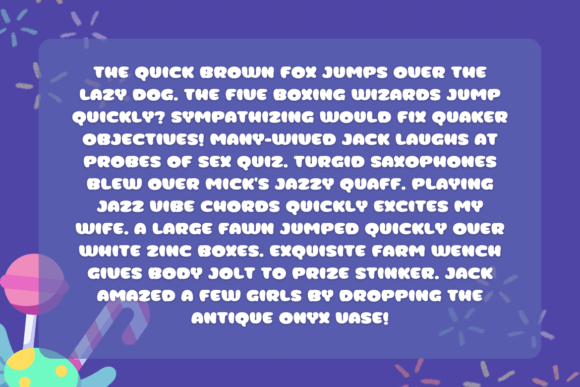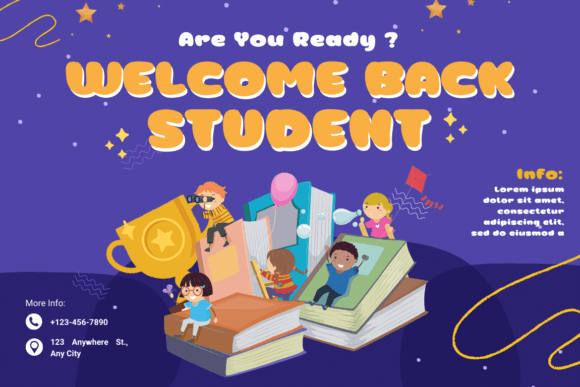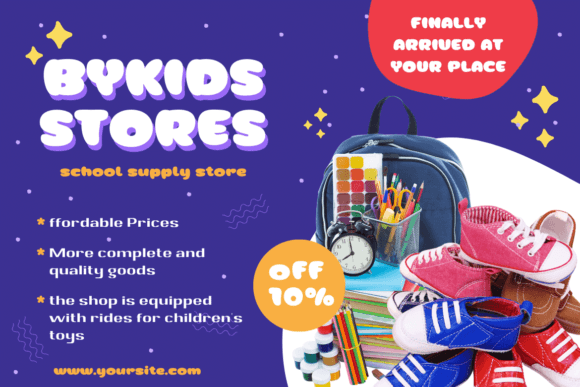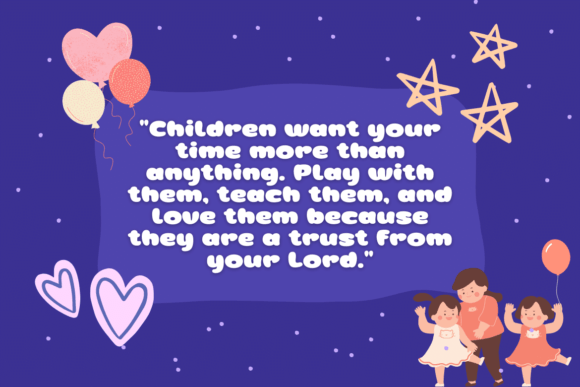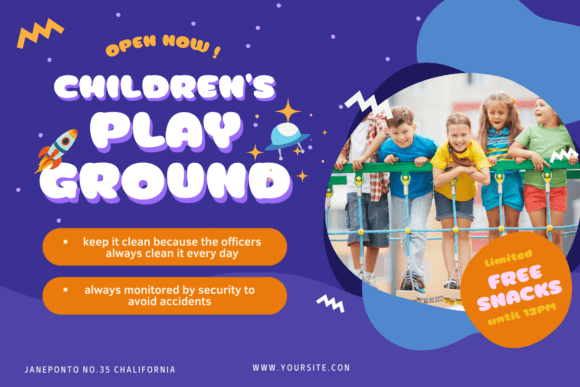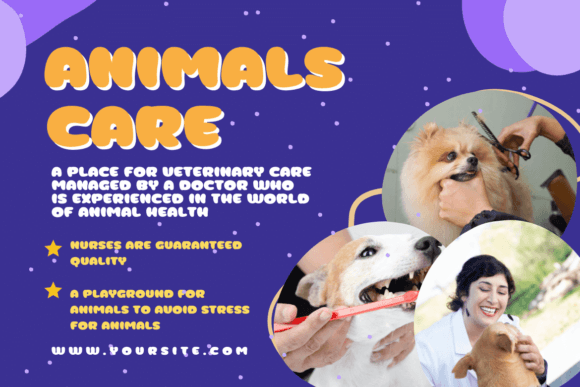
Ginbe Font: Elevate Your Designs with a Cute and Lovely Display Font
Are you looking for a font that can add a touch of personality to your designs? Look no further than Ginbe Font! This adorable display font is perfect for designers and crafters who want to give their projects a handcrafted, contemporary feel. In this article, we’ll explore the features and benefits of Ginbe Font, and show you how it can help take your designs to the next level.
What is Ginbe Font?
Ginbe Font is a modern display font that is both cute and lovely. Its simple and clean appearance makes it perfect for a wide range of design projects, from branding and advertising to packaging and digital media. With its unique and charming style, Ginbe Font is sure to capture the attention of your audience and leave a lasting impression.
Key Features of Ginbe Font
- Handcrafted feel: Ginbe Font has a distinctive handcrafted feel that sets it apart from other fonts. Its unique character shapes and subtle imperfections give it a personal touch that will make your designs stand out.
- Contemporary style: Despite its handcrafted feel, Ginbe Font has a distinctly contemporary style that will appeal to designers who want to create modern and trendy designs.
- Simple and clean appearance: Ginbe Font is characterized by its simple and clean appearance, making it perfect for designs that require a clear and easy-to-read font.
- Versatile: Ginbe Font is a versatile font that can be used for a wide range of design projects, from logos and branding to social media graphics and more.
Benefits of Using Ginbe Font
So why should you choose Ginbe Font for your designs? Here are just a few benefits of using this amazing font:
- Adds personality to your designs: Ginbe Font is a unique and charming font that will add a touch of personality to your designs. Whether you’re creating a logo, brochure, or social media graphic, Ginbe Font will help your design stand out from the crowd.
- Perfect for contemporary designs: If you’re looking for a font that will give your designs a modern and trendy feel, Ginbe Font is the perfect choice. Its contemporary style and clean appearance make it perfect for designs that require a fresh and modern look.
- Easy to read: Despite its unique character shapes, Ginbe Font is easy to read and will not distract from the content of your design. This makes it perfect for designs that require a clear and concise message.
- Time-saving: With Ginbe Font, you can create professional-looking designs in no time. Its simple and clean appearance means you can quickly and easily create designs that look great.
How to Use Ginbe Font
- Experiment with different sizes and colors: Ginbe Font looks great in a variety of sizes and colors. Experiment with different combinations to find the one that works best for your design.
- Pair it with other fonts: Ginbe Font pairs well with other fonts, such as sans-serif fonts or script fonts. Try pairing it with a complementary font to create a unique and interesting design.
- Use it for headlines and titles: Ginbe Font is perfect for headlines and titles, where its unique character shapes and clean appearance can really shine.
In conclusion, Ginbe Font is a cute and lovely display font that will give your designs a handcrafted, contemporary feel. With its simple and clean appearance, versatile style, and easy-to-read characters, Ginbe Font is perfect for a wide range of design projects. Whether you’re a designer, crafter, or DIY enthusiast, Ginbe Font is a great choice for anyone looking to add a touch of personality to their designs. So why wait? Start using Ginbe Font today and make your designs extraordinary!